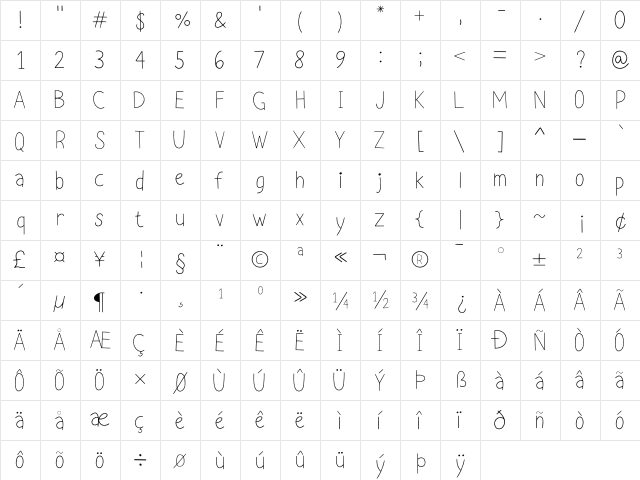
AlmostThin Thin
Design Context for AlmostThin
AlmostThin is a composed and adaptable typeface that performs quietly and consistently across a wide range of design contexts. Its slender proportions lend an understated elegance to any composition.